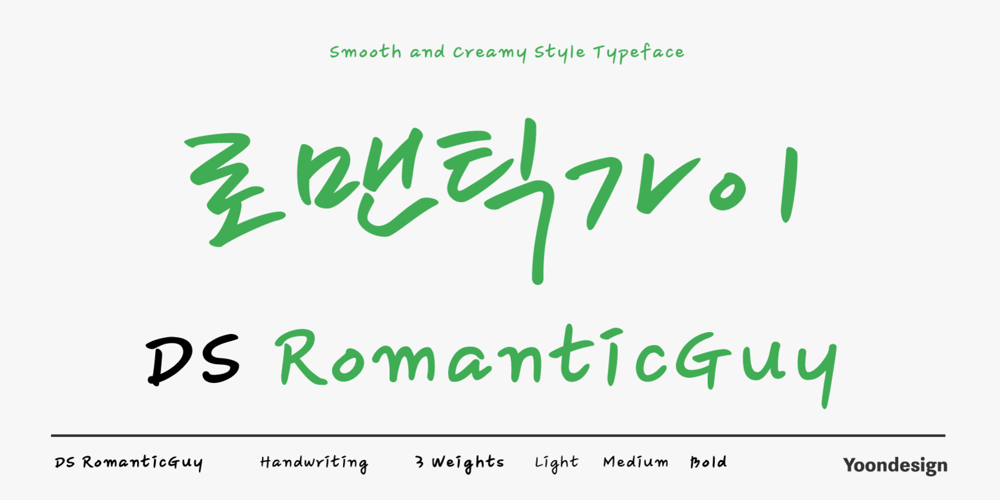
DS RomanticGuy Font Family was designed by Yoon Design Team and published by Yoon Design. DS RomanticGuy contains 3 styles and family package options. DS RomanticGuy Family is a bit wild but also smooth and creamy style. It has flowing cursive shapes and letters drawn with care and love, much like you find in a romantic young guy’s album. DS RomanticGuy Family has 3 styles and will come as a helping muse to any designer working with wedding invitations, announcements, gift and delicatessen packaging, or magazine layouts.